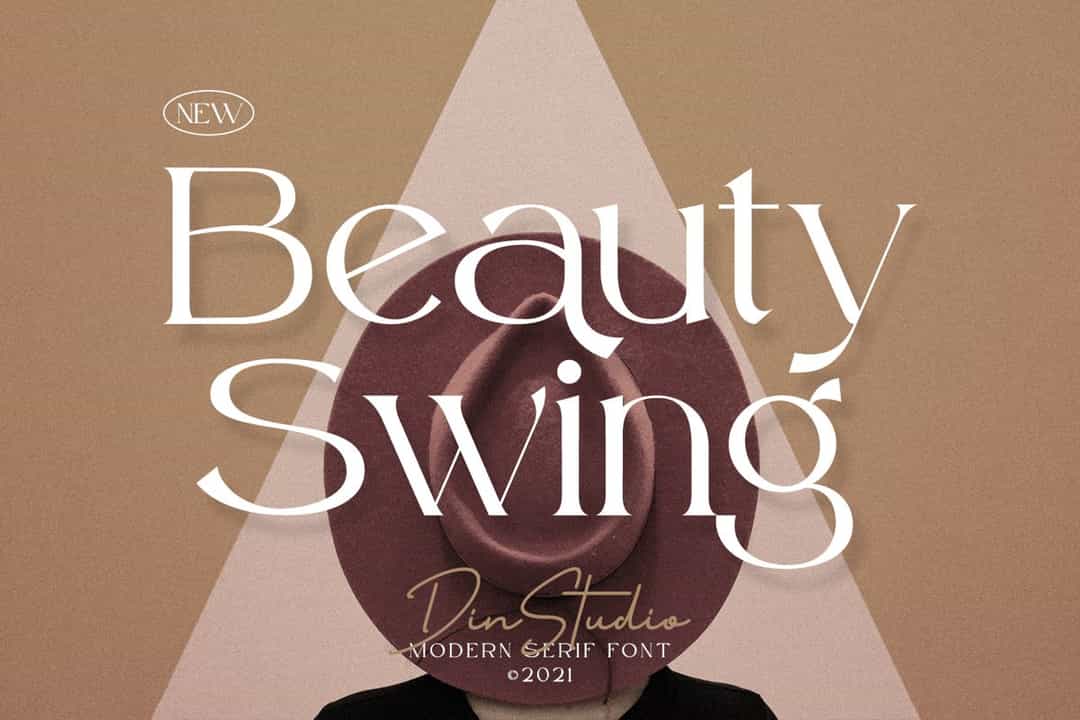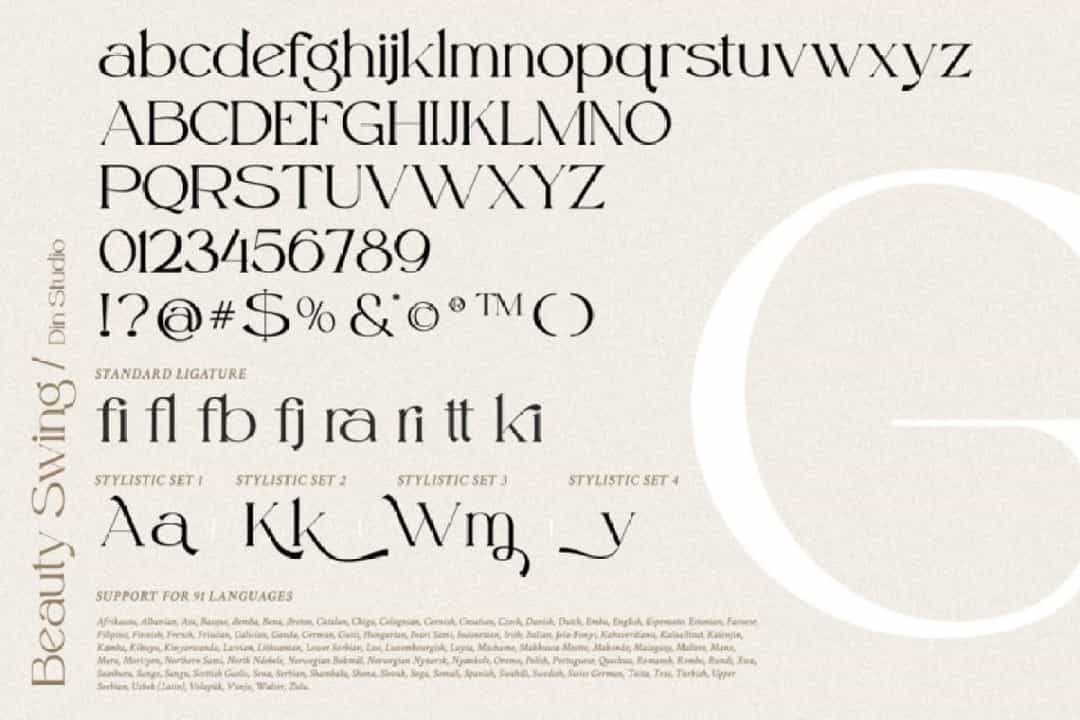
Beauty Swing Serif Font is a beautiful and elegant modern and stylish font that can be used as a lyrical font and will help to capture the audiences easily. Suits for different purposes and any kind of content. Beauty Swing is perfect for social media marketing, fashion-oriented designs or any quotations –